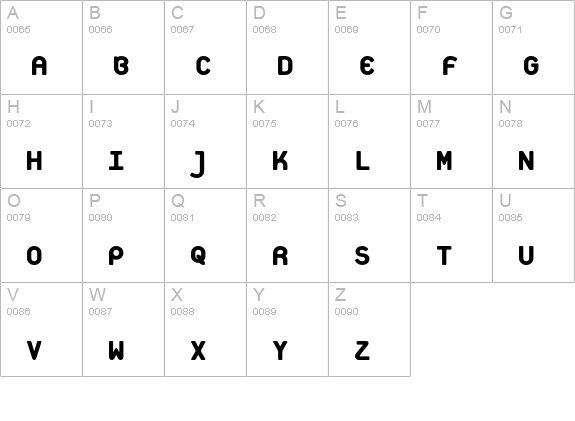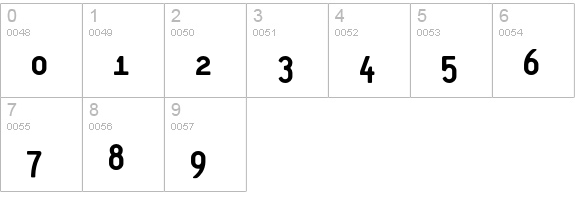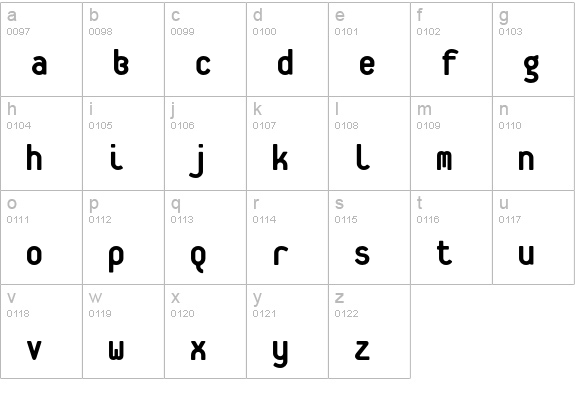
PlateletHeavy Font Details
PlateletHeavy font is a bold and striking typeface designed to make a powerful statement. With its thick, heavy lines and sharp edges, this font exudes confidence and strength. Perfect for headlines, logos, and branding projects that require a bold and impactful look. The unique design of PlateletHeavy font sets it apart from other fonts, making it a standout choice for designers looking to make a statement. Its modern aesthetic and strong presence make it a versatile option for a wide range of design projects. And the best part? PlateletHeavy font is completely free to download at FontsMarket.com. So you can bring this bold and impactful font into your projects without any cost. Don't miss out on this opportunity to elevate your designs with the striking PlateletHeavy font.